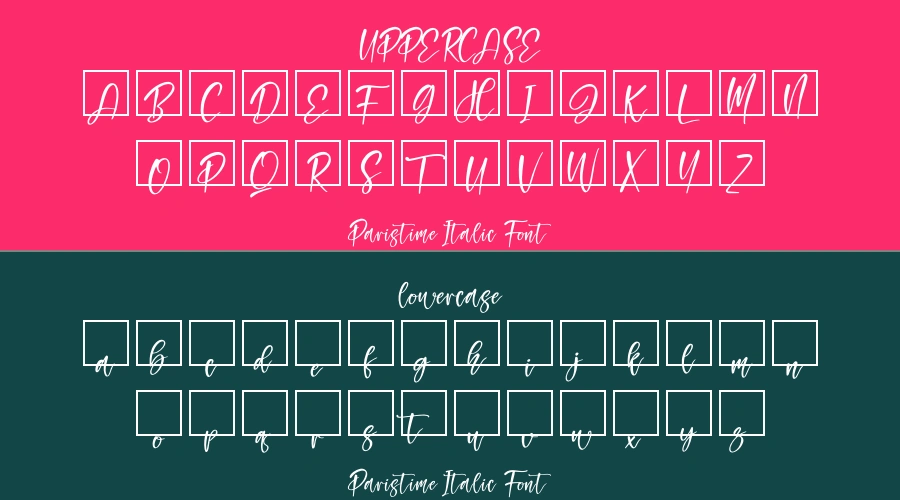
About Paristime Italic Font
Designed with precision, Paristime Italic Font merges sharp edges with longevity in every character. This versatility makes it particularly effective for legal documents, where adaptability and industry recognition directly impact communication quality. Each letterform demonstrates meticulous craftsmanship.
Technical excellence shines through elements like expressive curves and connecting forms, enhancing typographic versatility. In brand logos settings, Paristime Italic Font proves its worth through superior detail retention. The thoughtful execution of crossbar height and artistic influences ensures professional results.